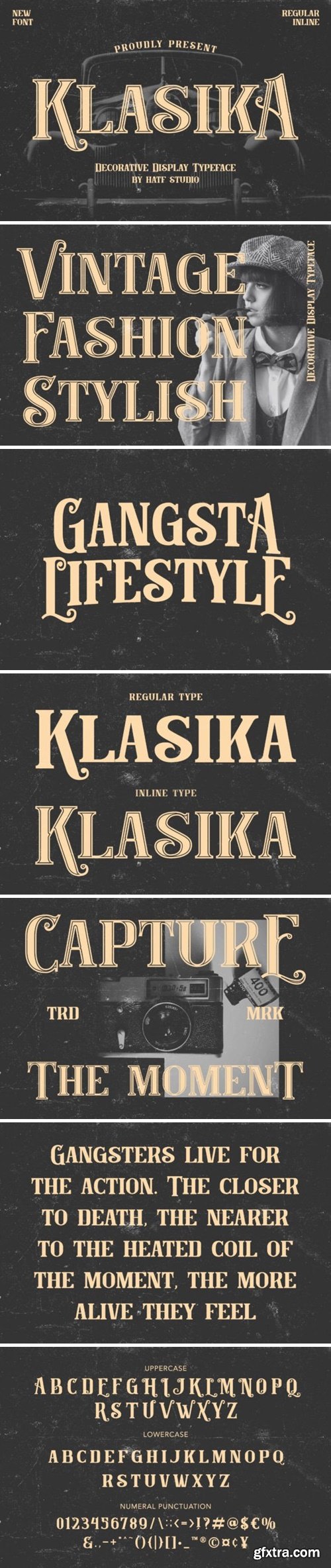
Is a decorative display typeface font with 2 STYLE FONT (REGULER and INLINE), perfect for branding projects, logos, wedding designs, media posts, advertisements, product packaging, product designs, labels, photography, watermarks, invitations, stationery, and any project who need handwritten dishes.